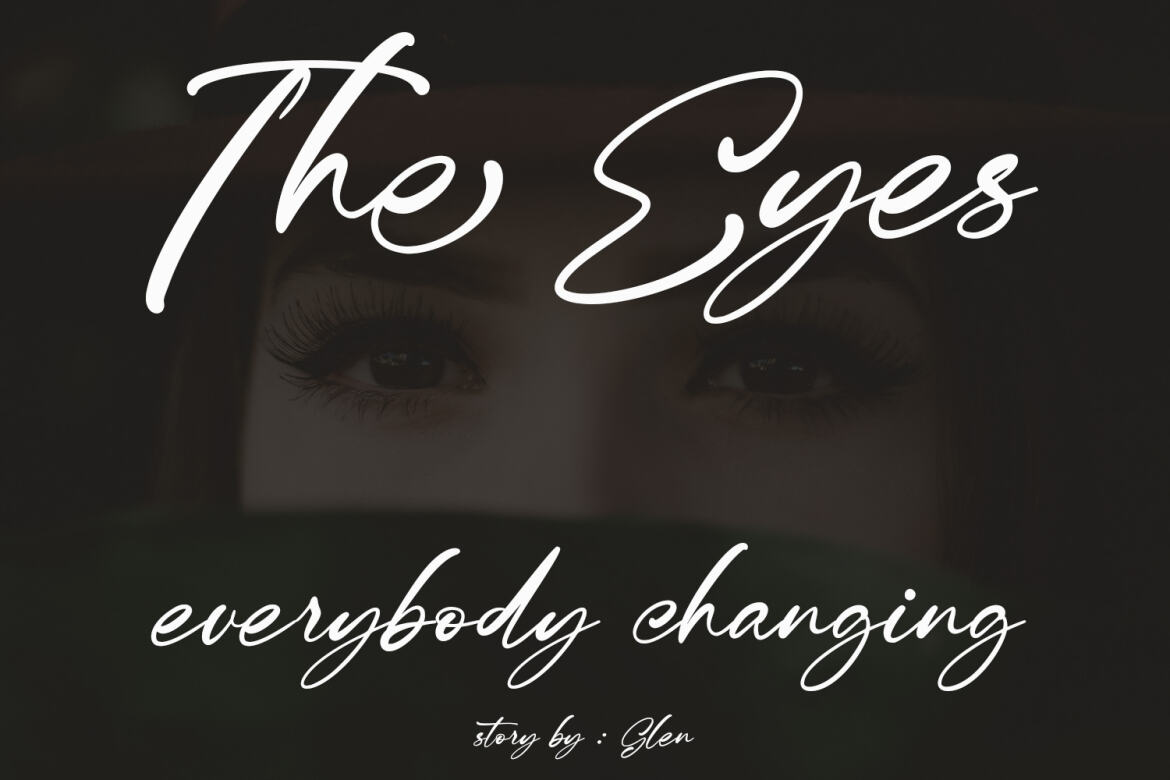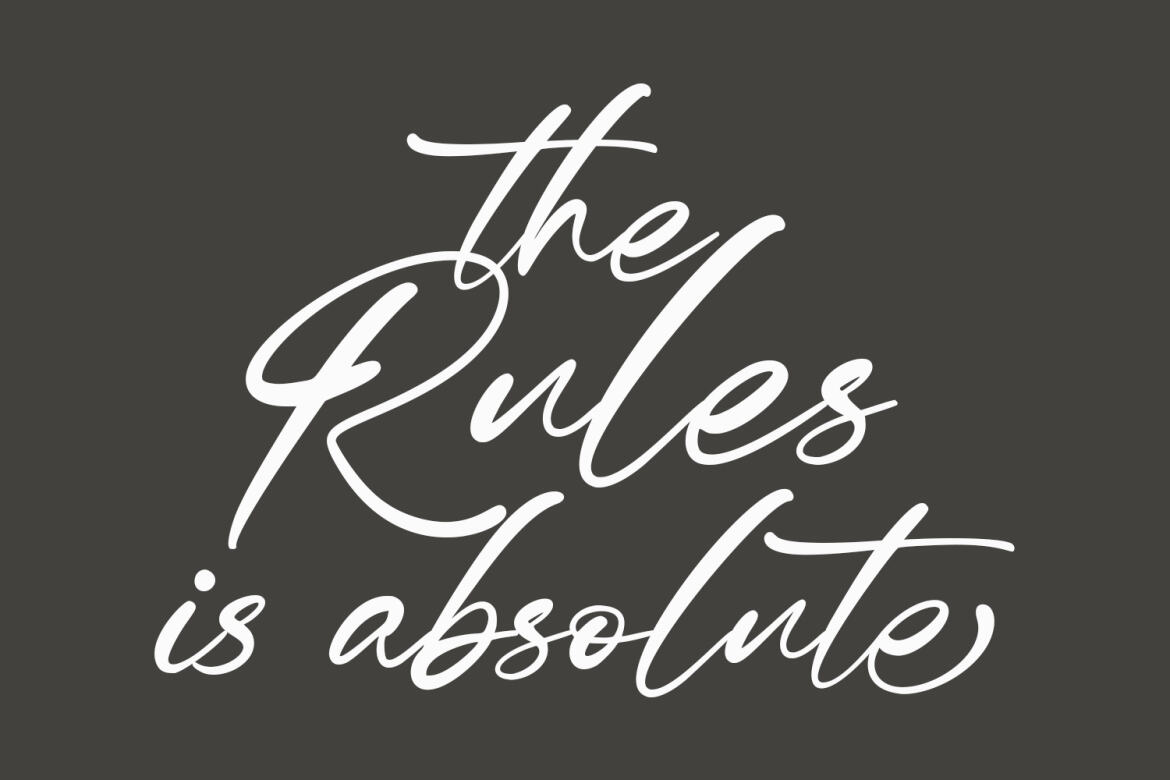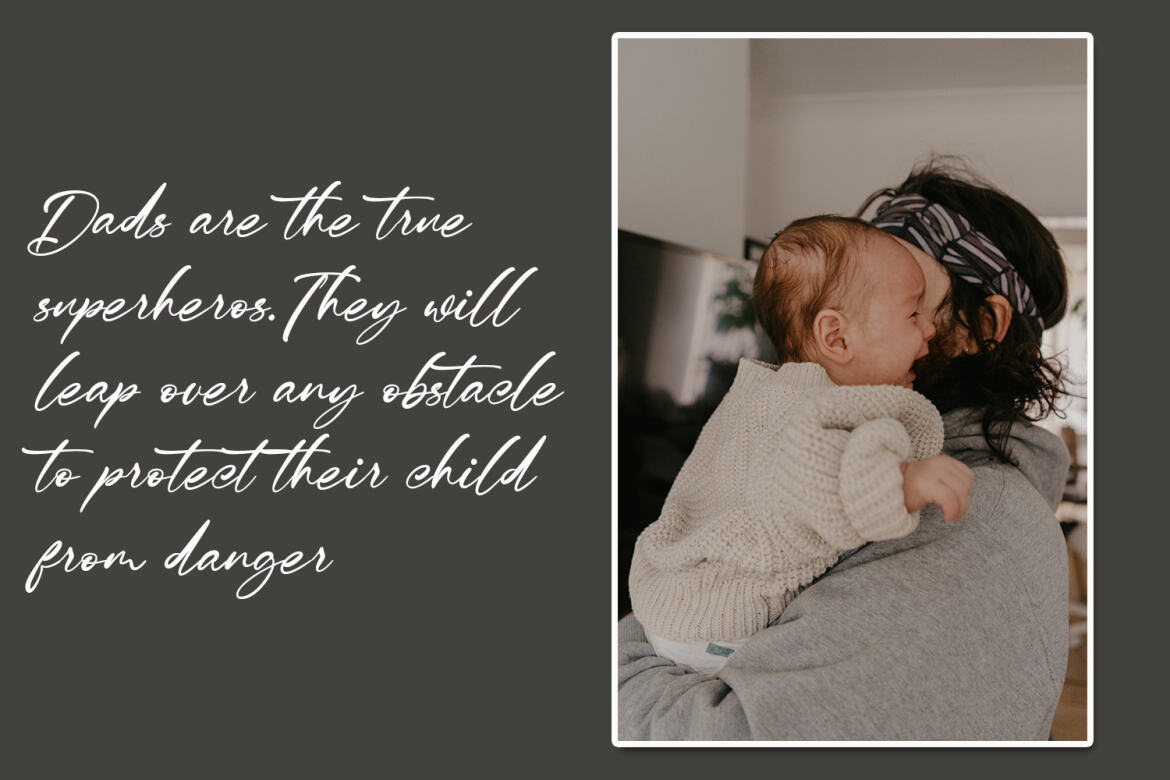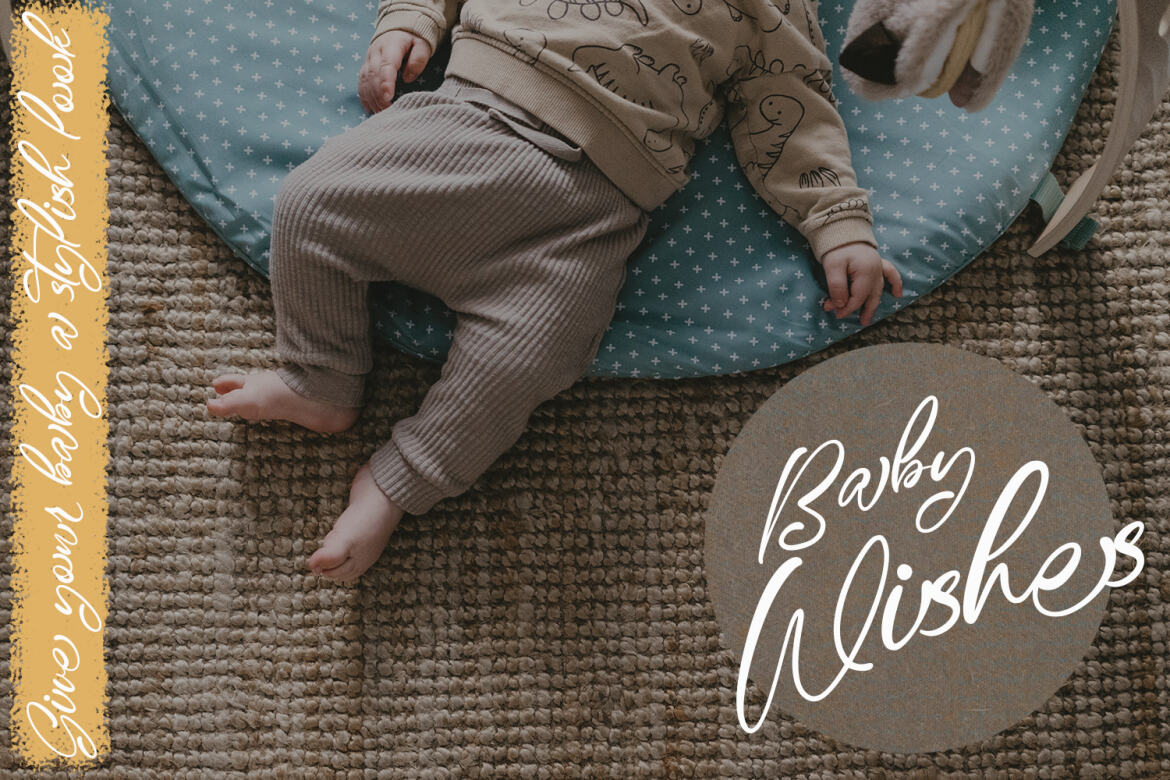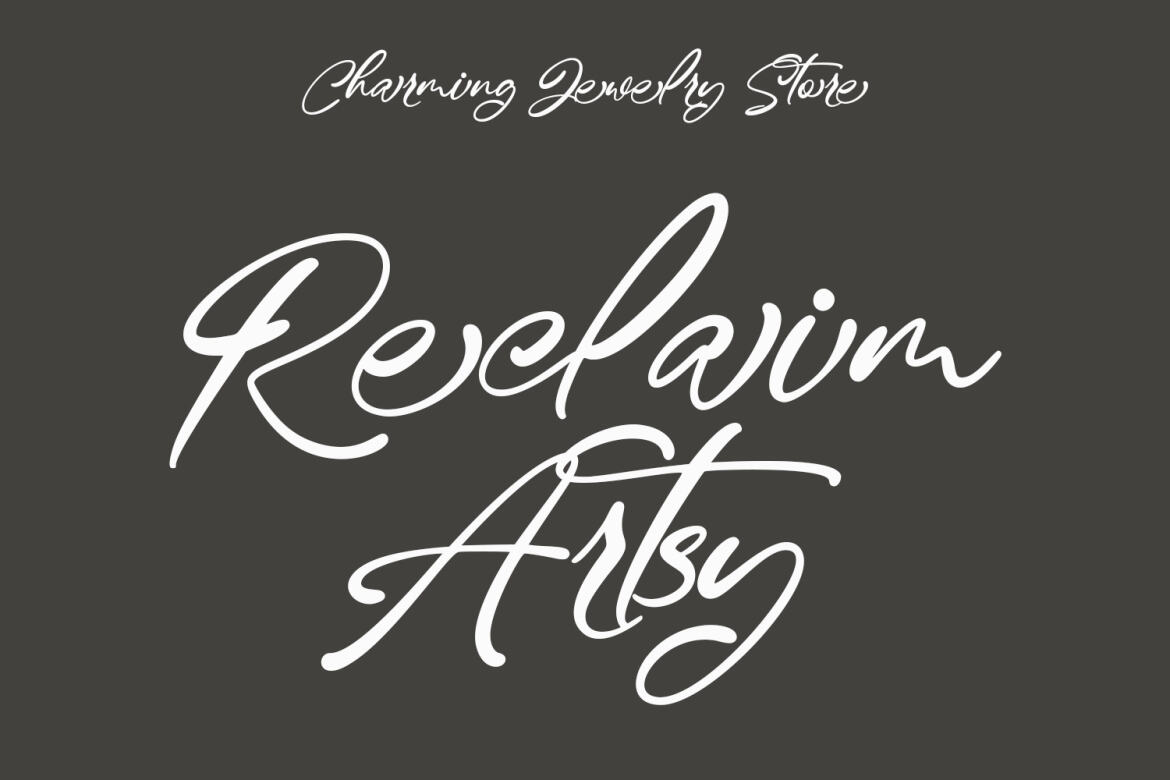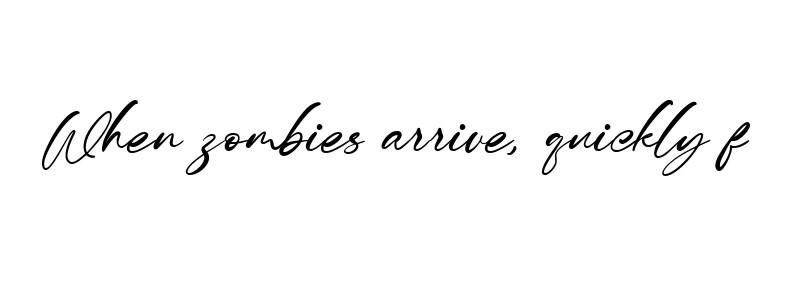
Fasttelyo Signature FREE Script Font
Fasttelyo
Fasttelyo is an ink-is signature script font. With light contrast stroke, fun character with a bit of ligature and alternates. To give you an extra creative work. Fasttelyo font support multilingual more than 100+ language. This font is good for logo design, Social media, Movie Titles, Books Titles, a short text even a long text letter and good for your secondary text font with sans or serif. Make a stunning work with Fasttelyo font.